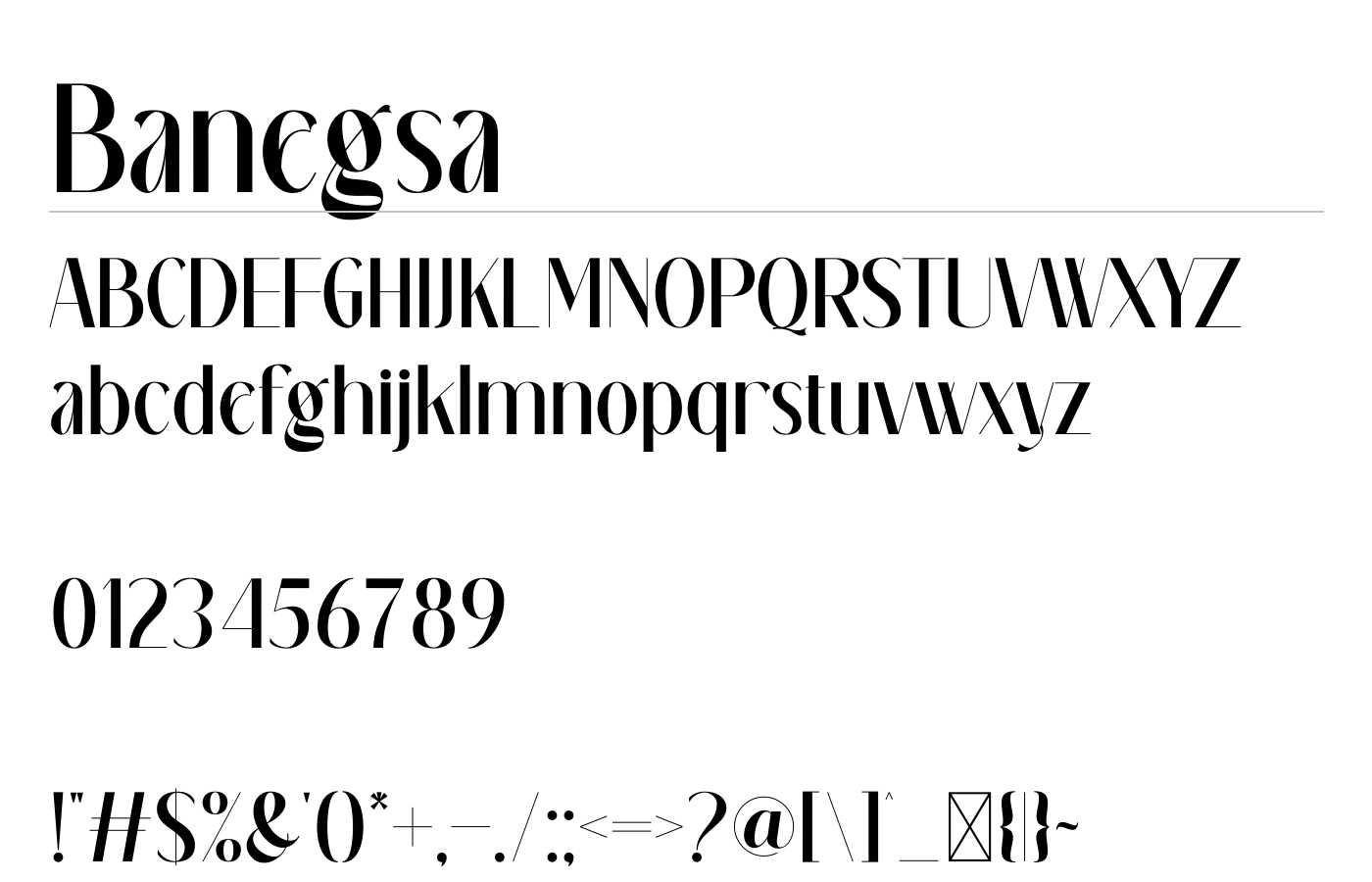
Banegsa is an elegant serif font that combines high contrast between thick and thin strokes with sharp, refined edges, giving it a sophisticated and modern feel. Its condensed letterforms and tall x-height, paired with unique flourishes like the distinct Q tail and single-story g, make it ideal for stylish headlines, luxury branding, and editorial design where a dramatic yet classy look is desired.
Banegsa Font